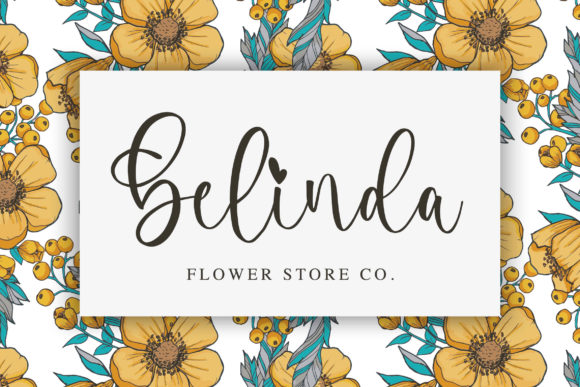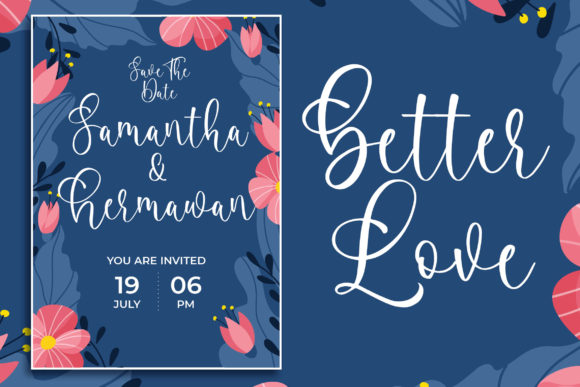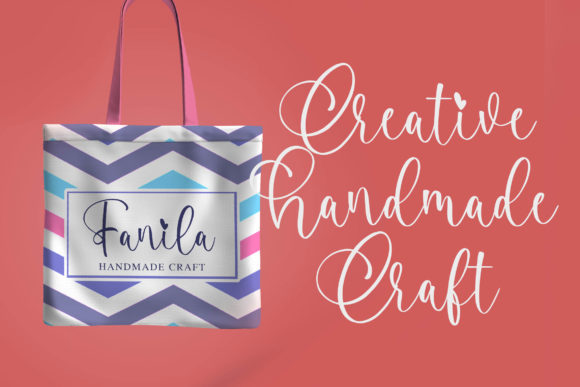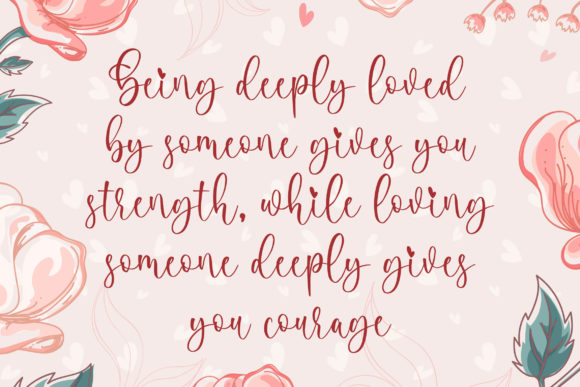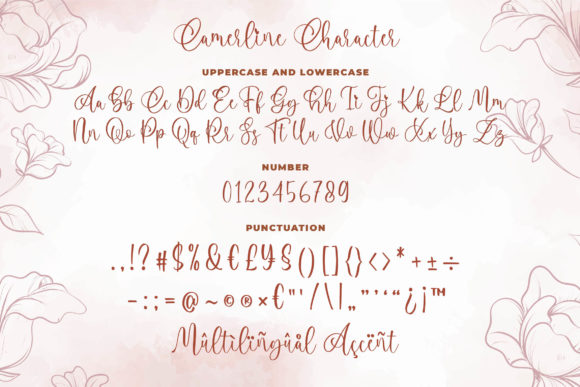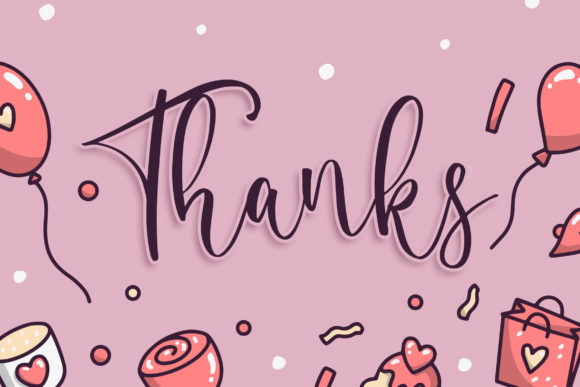
Camerline Font: Elevate Your Design with Classic Elegance
In the world of typography, few fonts manage to strike a balance between classic sophistication and modern flair. Camerline Font is one such typographic marvel that brings its own unique style to the table, making it an excellent choice for designers and crafters looking to elevate their projects. Inspired by the timeless beauty of classic typography, Camerline injects a fresh perspective into any design, making it versatile for a wide range of applications.
The Essence of Camerline Font
Camerline is not just another script font; it’s a masterpiece that draws inspiration from the traditional typography of the past while incorporating contemporary design elements. This fusion results in a font that exudes elegance, sophistication, and a hint of modernity. Whether you’re working on a branding project, a website, a print magazine, or even a movie title, Camerline promises to add that extra layer of appeal that makes your work stand out.
One of the standout features of Camerline Font is its incredible versatility. This fantastic script font is best suited for headlines of all sizes, ensuring that your titles and headings grab attention without overwhelming the reader. Moreover, its design accommodates blocks of text with both maximum and minimum variations, making it an excellent choice for projects that require a mix of lengthy content and concise statements.
Applications of Camerline Font
The adaptability of Camerline Font is one of its most compelling attributes. Here are some of the areas where Camerline truly shines:
- Web Design: For website headers, banners, and even body text, Camerline offers a professional look that enhances user experience.
- Print Media: In brochures, posters, magazines, and books, Camerline adds a touch of sophistication and elegance.
- Motion Graphics: For movie titles, video intros, and animations, Camerline’s classic yet modern appeal is unmatched.
- Branding and Advertising: Use Camerline to create memorable logos, advertisements, and marketing materials that speak to your audience.
Why Choose Camerline Font?
Choosing Camerline Font for your design project comes with numerous benefits:
- Unique Style: Camerline brings a fresh perspective to traditional typography, setting your work apart from the generic and the mundane.
- High Readability: Despite its elegant and cursive nature, Camerline maintains high readability, making it suitable for both headings and body text.
- Flexibility: It can be used in a variety of sizes and contexts without losing its charm or legibility.
- Timeless Appeal: Unlike trendy fonts that may quickly go out of style, Camerline’s classic inspiration ensures it remains relevant for years to come.
Tips for Using Camerline Font Effectively
To get the most out of Camerline Font, consider the following tips:
- Mix and Match: Combine Camerline with simpler fonts for body text to create visual hierarchy and contrast.
- Adjust Size and Weight: Experiment with different sizes and weights of Camerline to add depth and emphasis to your design.
- Consider Color: Choose colors that complement the elegance of Camerline, such as muted tones, rich blacks, or soft pastels.
Camerline Font is a remarkable addition to the world of typography, offering designers and crafters a tool that is both classic and contemporary. Its versatility, elegance, and unique style make it an excellent choice for a wide range of design projects. Whether you’re aiming to create stunning headlines, compelling body text, or simply looking for a font that brings a touch of sophistication to your work, Camerline is sure to exceed your expectations. Embrace the beauty of Camerline Font in your next project and witness how a simple typographic choice can elevate your design to new heights.